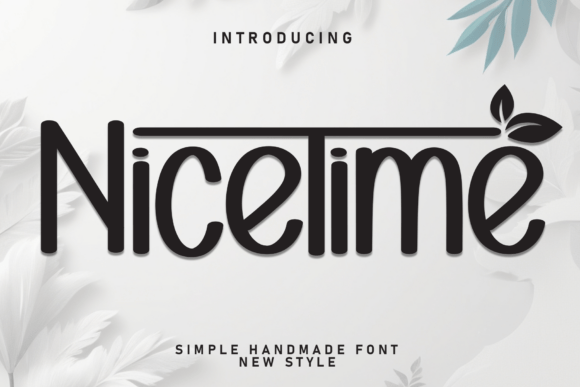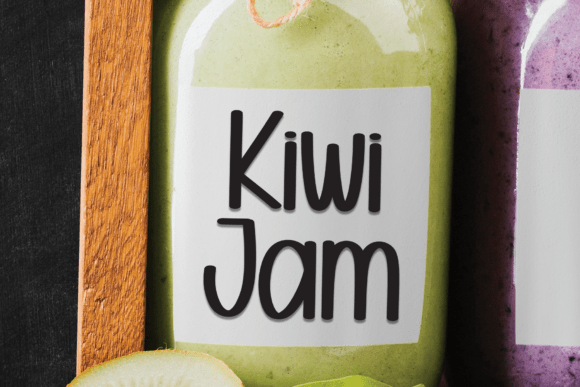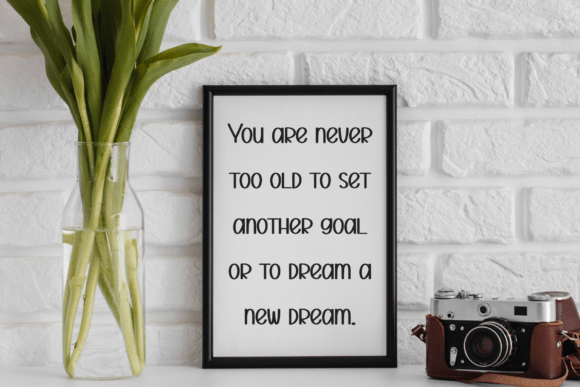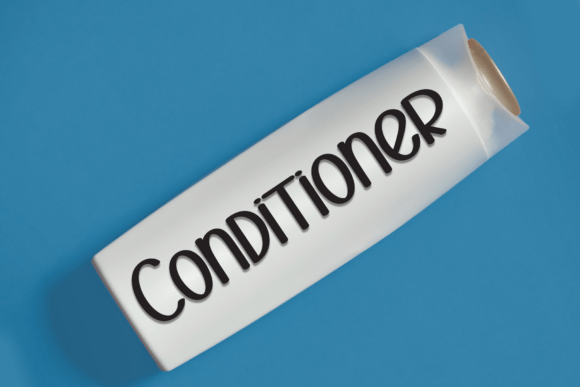
Nicetime Font
About the Nicetime Font
Crafted with precision, the Nicetime Font is ready to bring your ideas to life. This display handwritten font bursts with personality and charm, capturing the warmth of real handwriting with bold, eye-catching strokes. Designed to stand out while maintaining a natural flow, it’s perfect for logos, social media graphics, posters, and anything that calls for a personal, expressive touch. Whether you’re crafting a heartfelt quote or branding a creative product, this font brings authenticity and flair to your design.
Nicetime excels as a display font for headlines, short text blocks, and logos where its bold, expressive nature can shine. It’s ideal for projects needing a friendly, approachable feel, such as branding for artisan goods, children’s products, or social media campaigns aiming for a personal connection. Avoid using it for body text or lengthy paragraphs; its handwritten style lacks the legibility needed for extended reading.
Pairing Nicetime with a clean sans-serif like Lato or Open Sans provides a strong contrast, balancing its playful energy with a sense of order. For a more sophisticated look, consider pairing it with a delicate serif font such as Playfair Display; the contrast will emphasize Nicetime’s charm while maintaining a polished feel. A geometric sans-serif such as Montserrat would also create visual harmony, offering a modern complement to the handwritten feel.
The overall personality of Nicetime is undeniably cheerful and approachable, with a touch of rustic charm. Its bold strokes and slightly irregular forms create a feeling of warmth and authenticity, making it perfect for brands that prioritize a human-centric approach and a strong sense of personality.